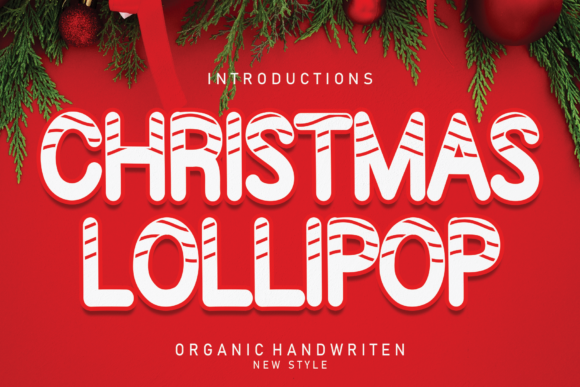
Unleash the Magic of Digital Art with Christmas Lollipop Font: A Display Font that Transforms Your Designs
In a world where digital creations reign supreme, your choice of font holds immense power in capturing attention and conveying emotions. Allow us to introduce Christmas Lollipop Font, a stunning display font crafted with meticulous care to elevate your designs to new heights.
Step into a Realm of Visual Enchantment:
Christmas Lollipop Font is not merely a collection of letters; it's a gateway to a realm where creativity flourishes and imagination knows no bounds. Its unique design, inspired by the spirit of Christmas, adds a touch of magic to every project it graces.
A font for All Occasions:
Whether you're creating captivating social media posts, designing eye-catching logos, or crafting unforgettable invitations, Christmas Lollipop Font is your trusty companion. Its versatility knows no limits, making it the perfect choice for a wide range of projects, each with its own distinct charm.
Capture Hearts with Every Stroke:
Every character in Christmas Lollipop Font is meticulously crafted to evoke emotions and leave a lasting impression. Its playful curves and whimsical details add a touch of delightfulness, while its bold strokes exude confidence and sophistication. Prepare to captivate your audience with every word you write.
Experience Seamless Harmony:
Christmas Lollipop Font is meticulously designed to blend seamlessly with your existing fonts, creating visual harmony that enhances your designs. Say goodbye to jarring transitions and embrace a cohesive aesthetic that captivates and engages your audience.
Optimized for Digital Brilliance:
In the realm of digital art, clarity and precision reign supreme. Christmas Lollipop Font is meticulously optimized for retina displays, ensuring pixel-perfect clarity that brings your designs to life. Every curve, every stroke, every detail is rendered with exceptional sharpness, leaving your audience in awe.
Join the Creative Revolution:
Christmas Lollipop Font is more than just a font; it's an invitation to join a creative revolution. With its endless possibilities and captivating charm, this font empowers you to unleash your creativity and leave an indelible mark on the digital world.